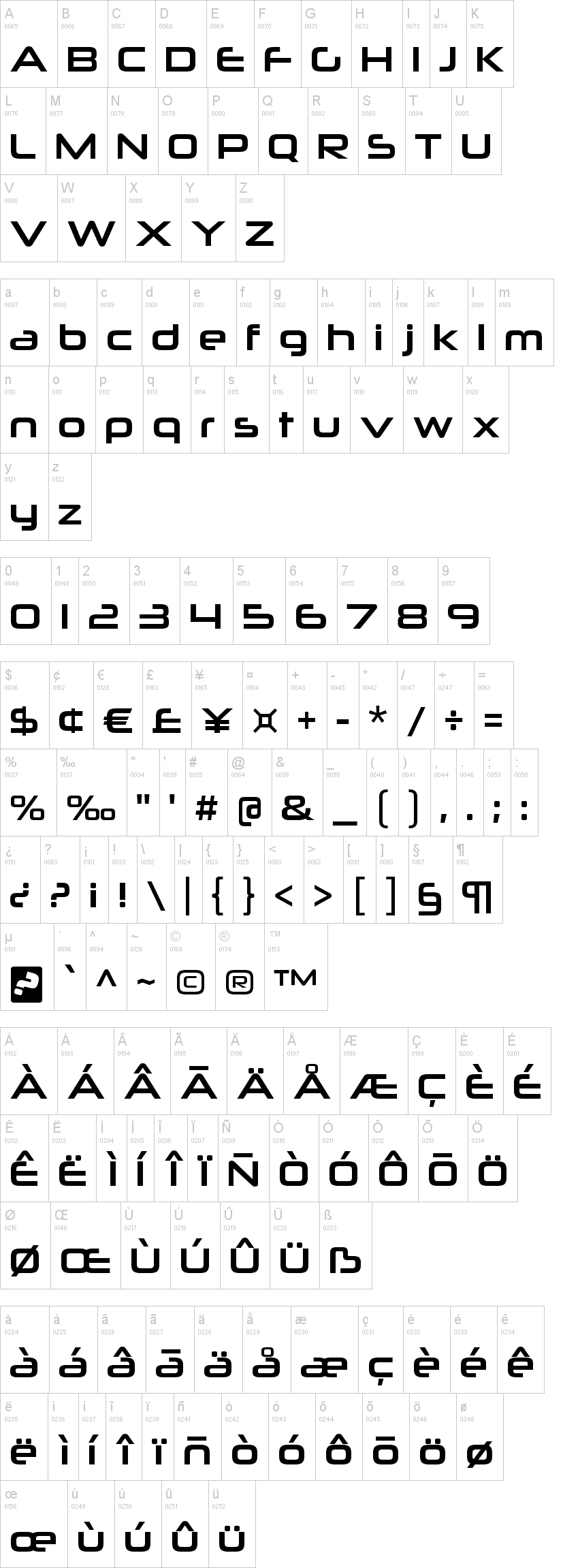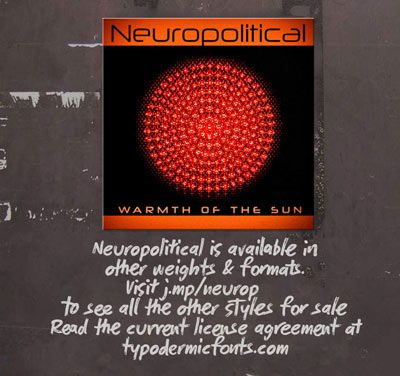
Шрифт Neuropolitical
Neuropolitical is a sleek display font family based on Neuropol X. There are lots of other styles available as well. Article here: http://typodermicfonts.com/neuropolitical-science